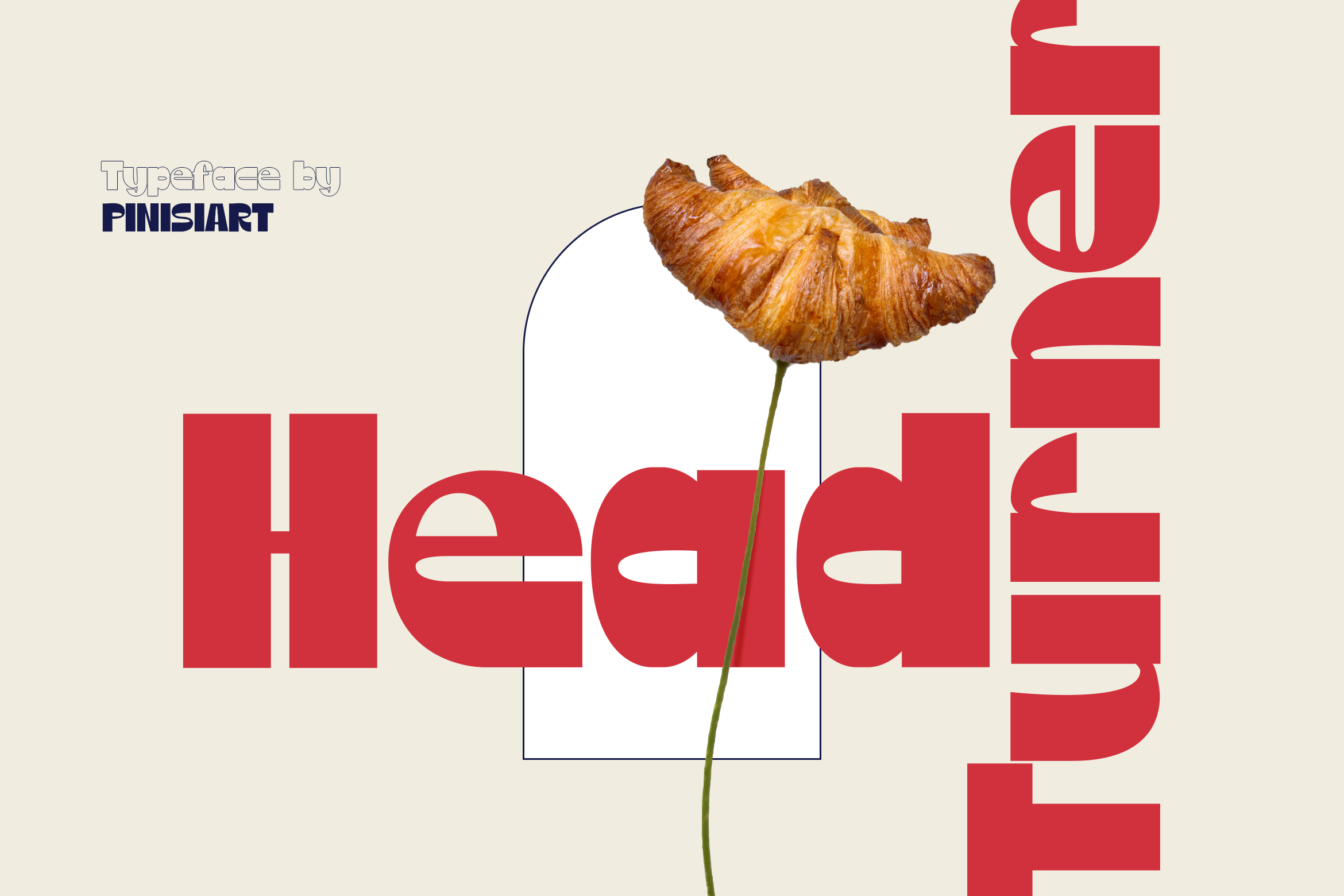
Head Turner – Display Font
The bold and attention-grabbing shape font will make all head-turning for a second and convincing look to what it’s written. It is not your regular sans serif font… this is Head Turner that will blow every person’s mind.
Suit perfectly for mature and provocative and encouraging themes books market, economic posters, stationary, school supplies font, youtube covers, youtube thumbnails, social media page covers, and so on…